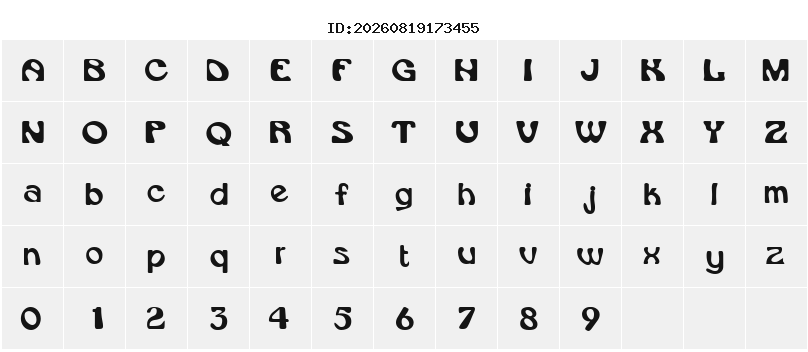
Shropshire Preview
• Font Name: Shropshire
• Full Font Name: Shropshire Bold
About Shropshire.ttf
Shropshire.ttf is a modern, elegant sans-serif font designed for ultimate readability and visual harmony. Perfect for branding, headlines, web design, and print materials.